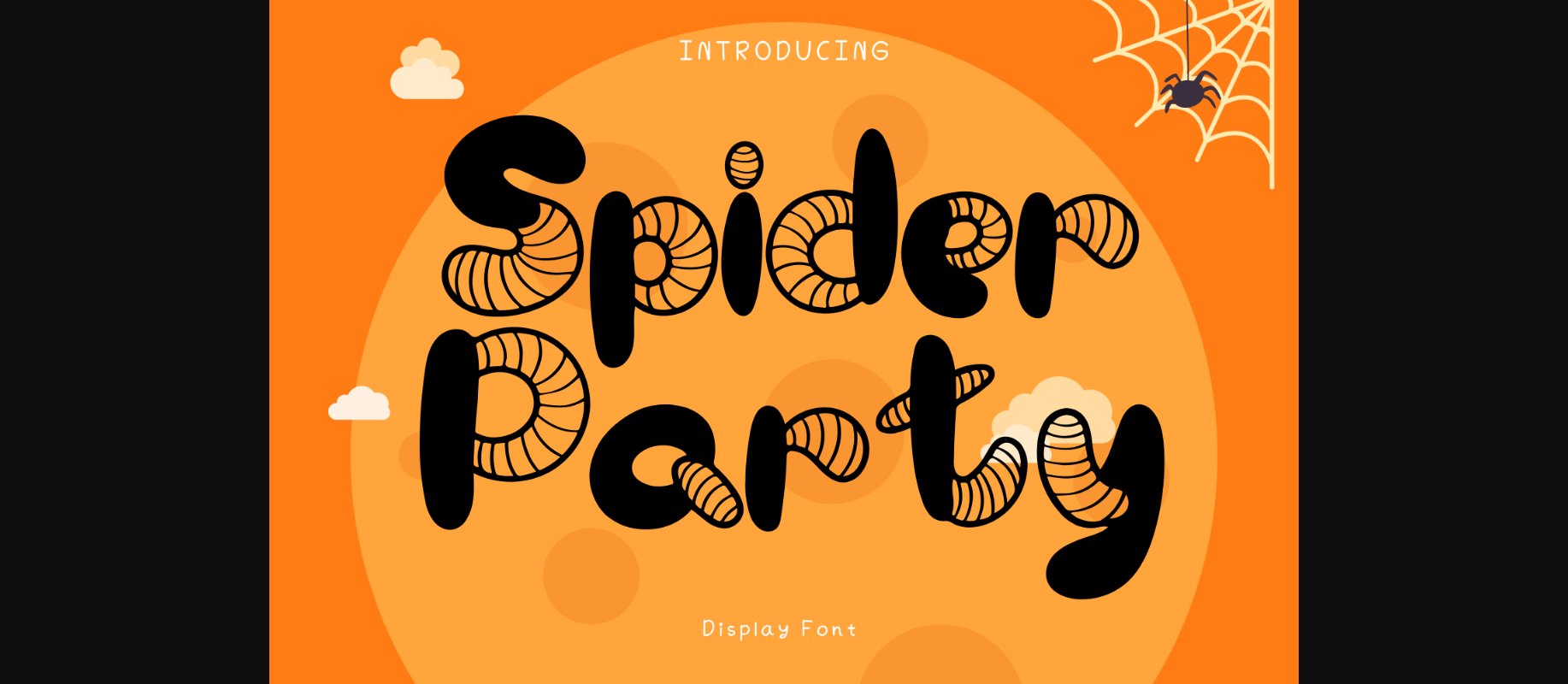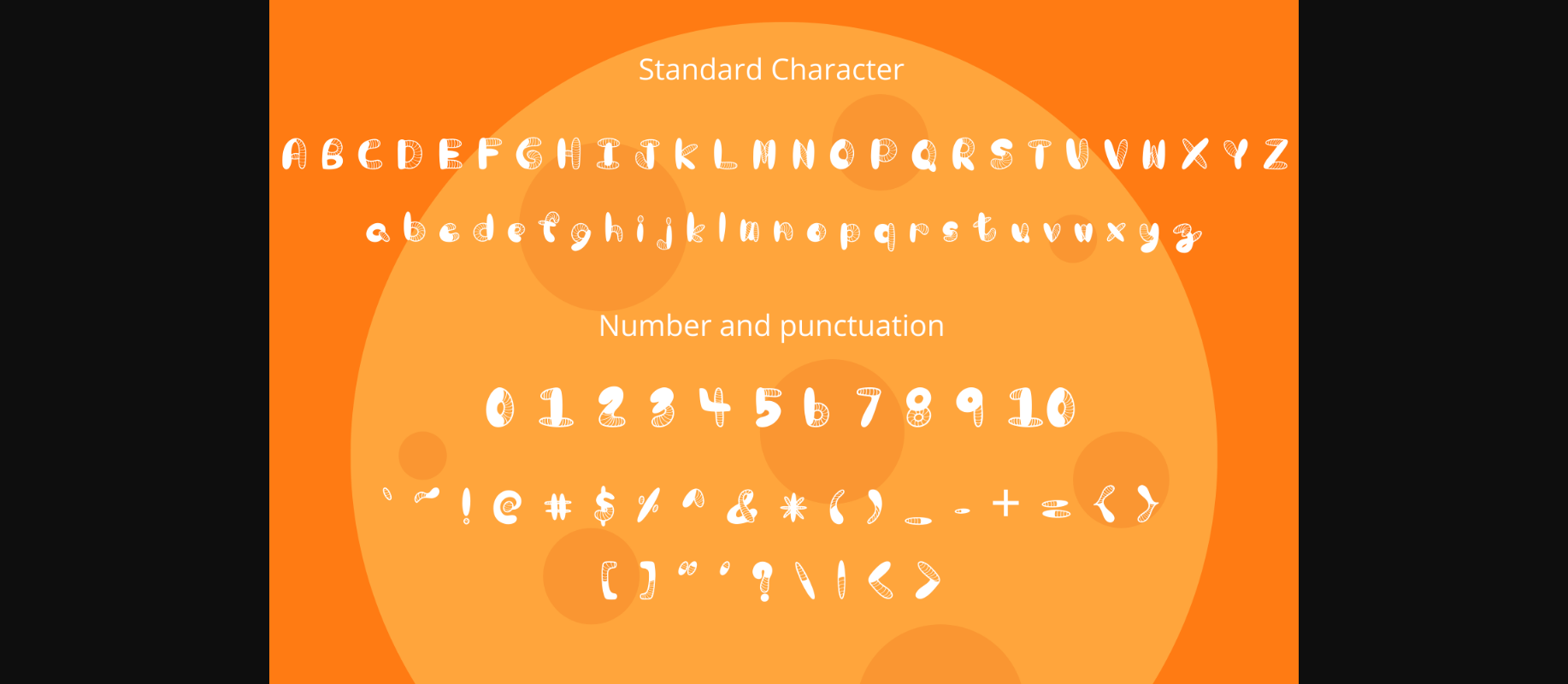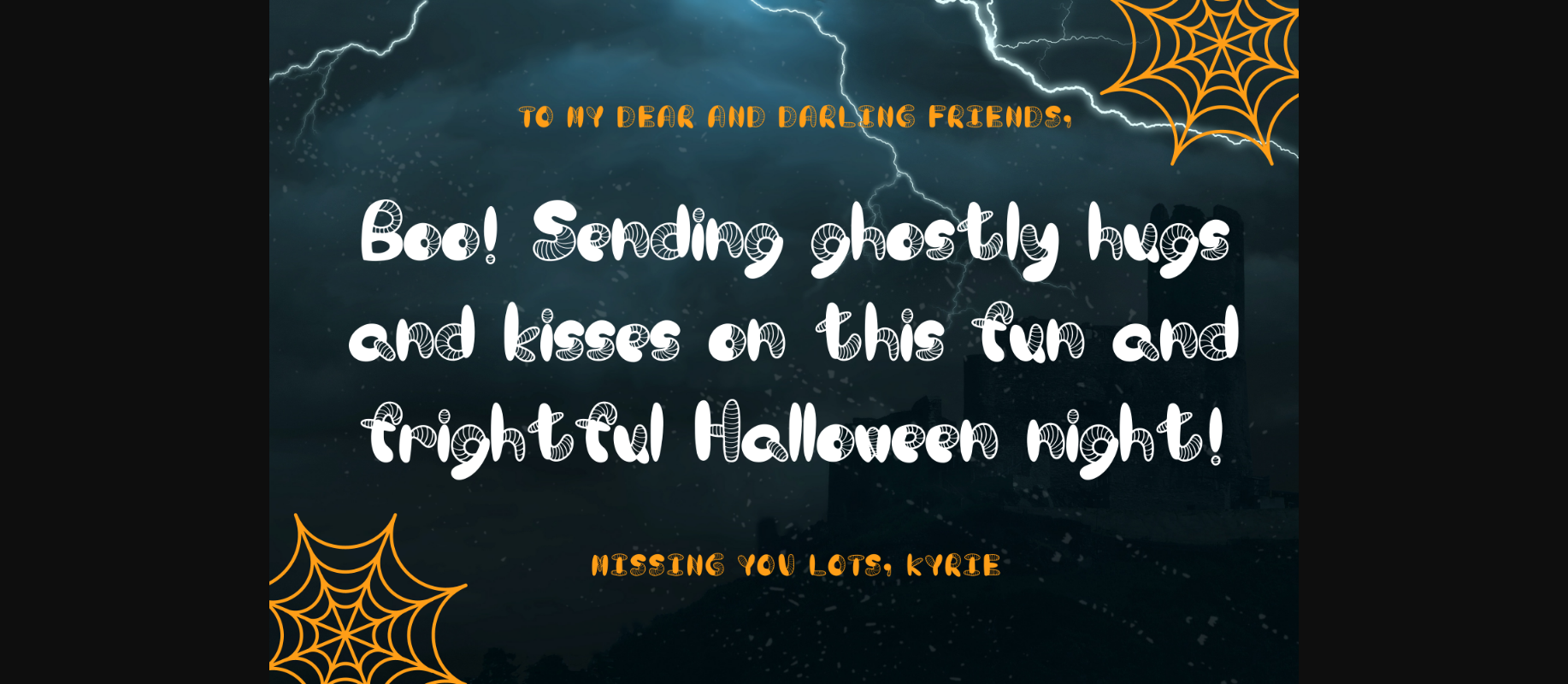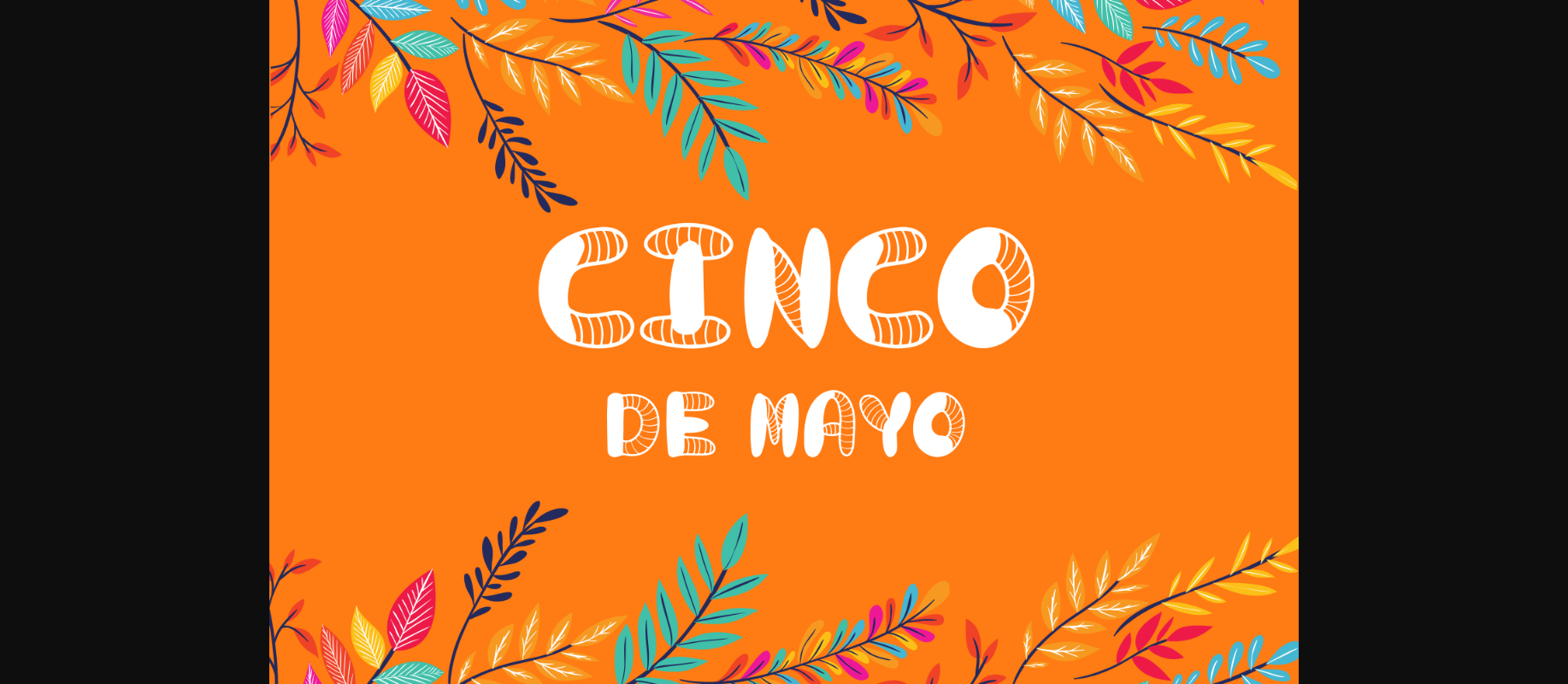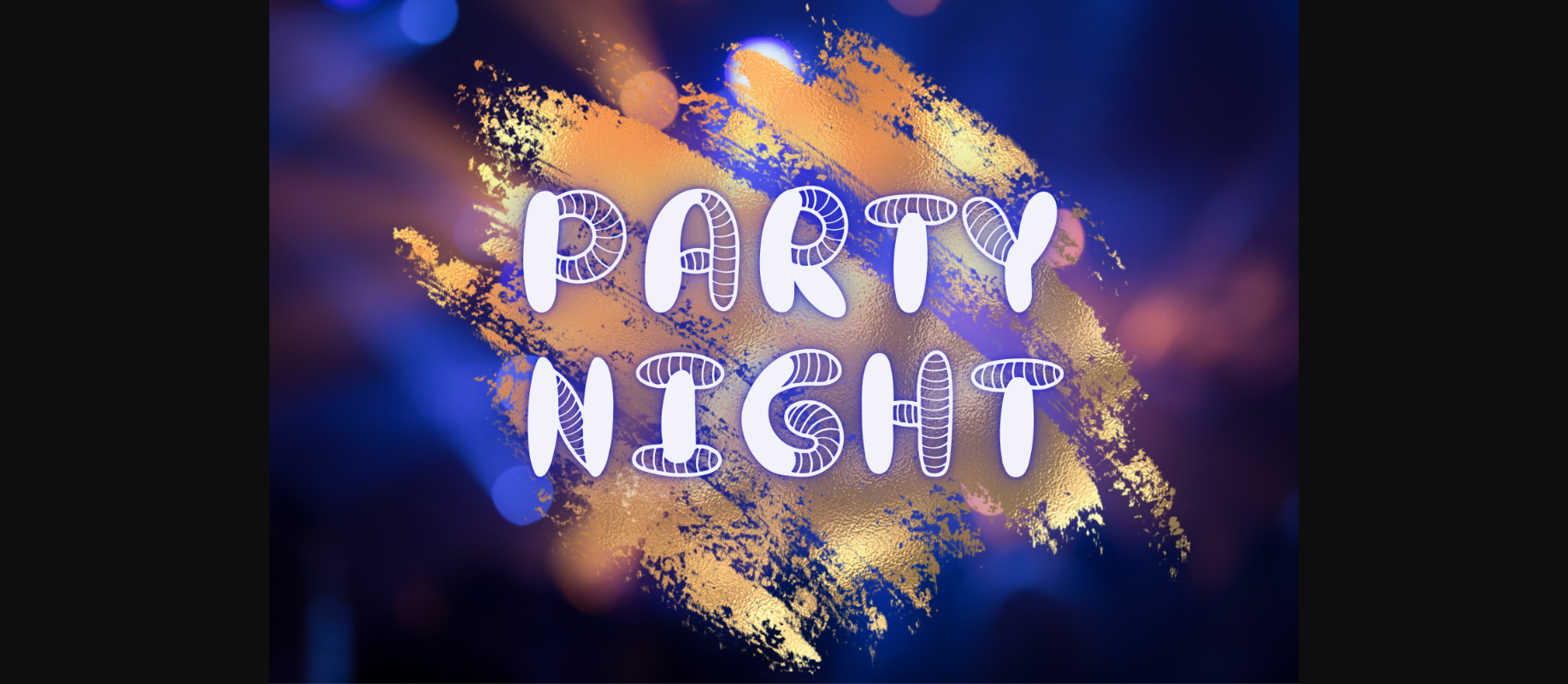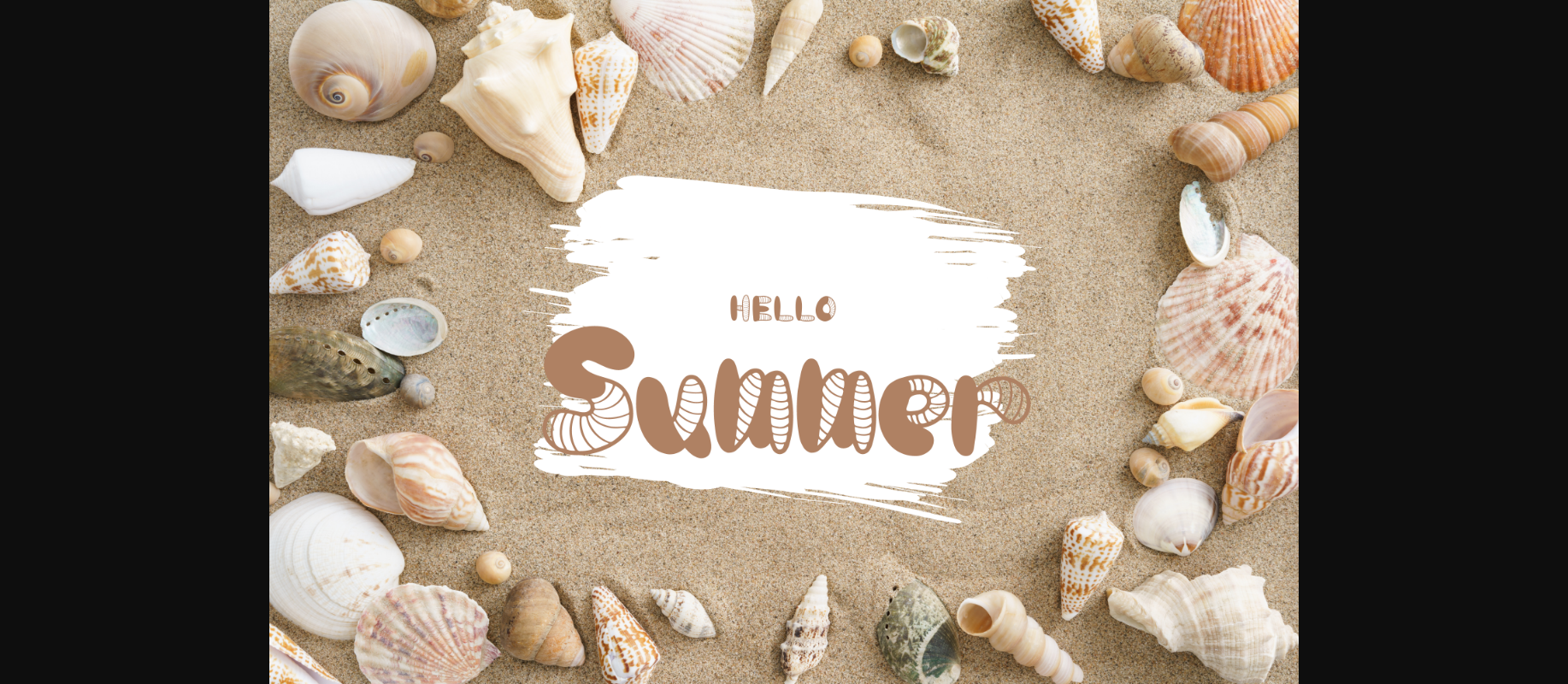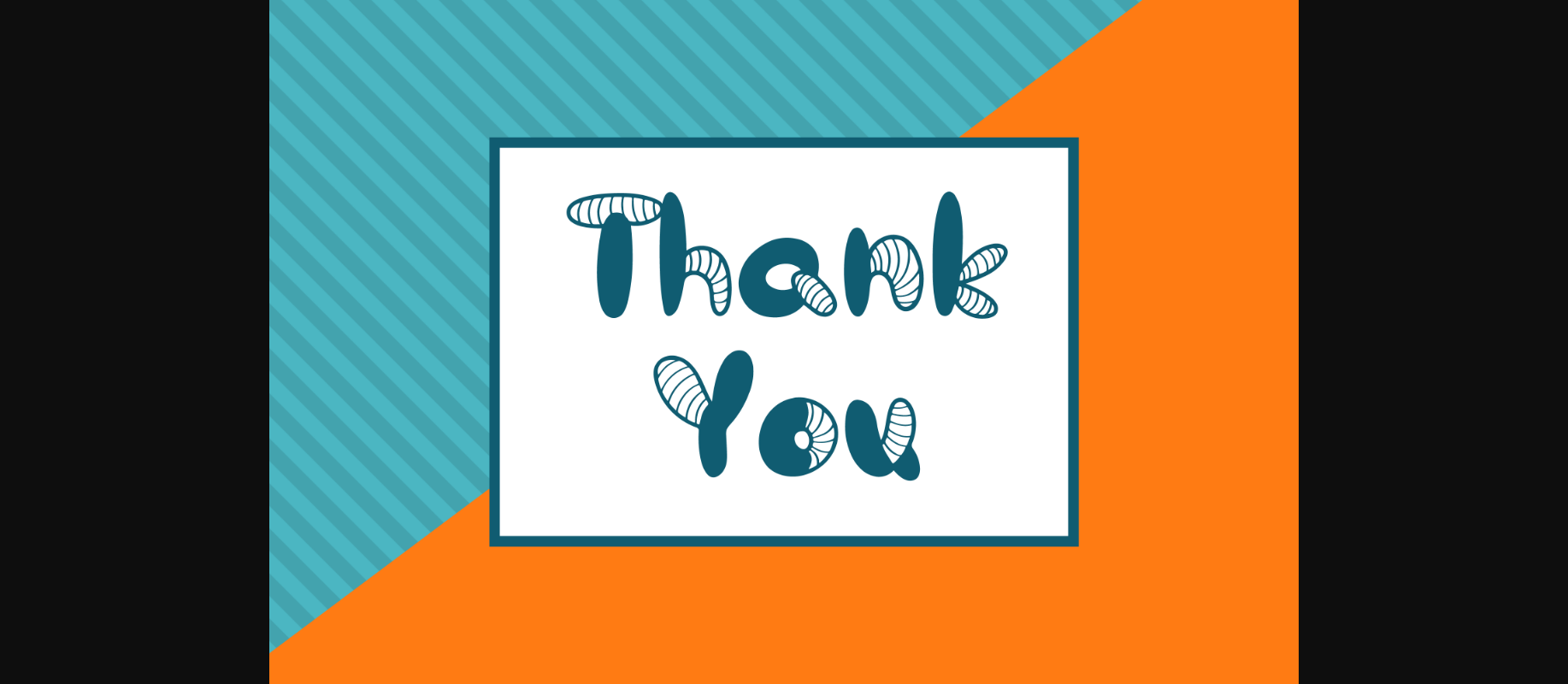
Spider Party is a whimsical and fun decorative font. It can easily be matched to an incredibly large set of children or school projects, so add it to your creative ideas and notice how it makes them stand out!